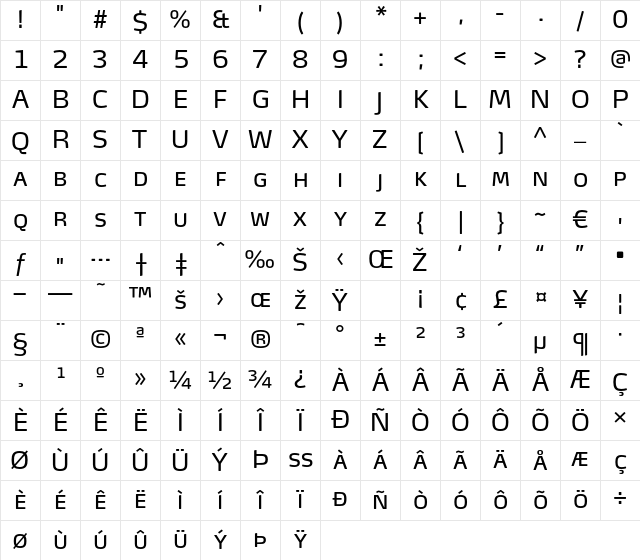
MaxTF-RegularSC Regular
Design Context for MaxTF-RegularSC
MaxTF-RegularSC is a composed and adaptable typeface that performs quietly and consistently across a wide range of design contexts.